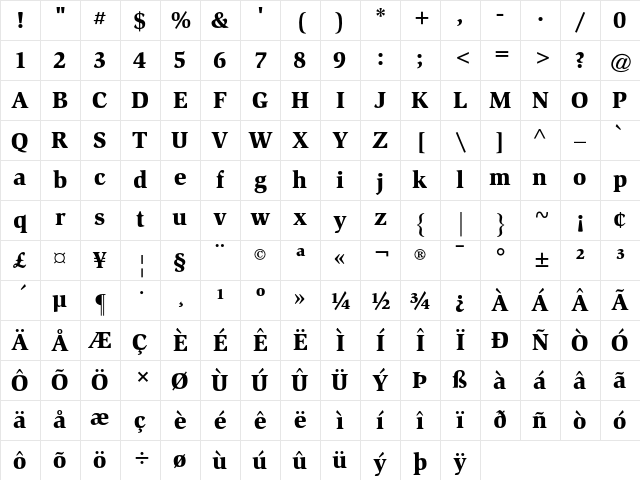
ATSlimbach Regular
ATSlimbach Family
Design Context for ATSlimbach
ATSlimbach is a composed and adaptable typeface that performs quietly and consistently across a wide range of design contexts.